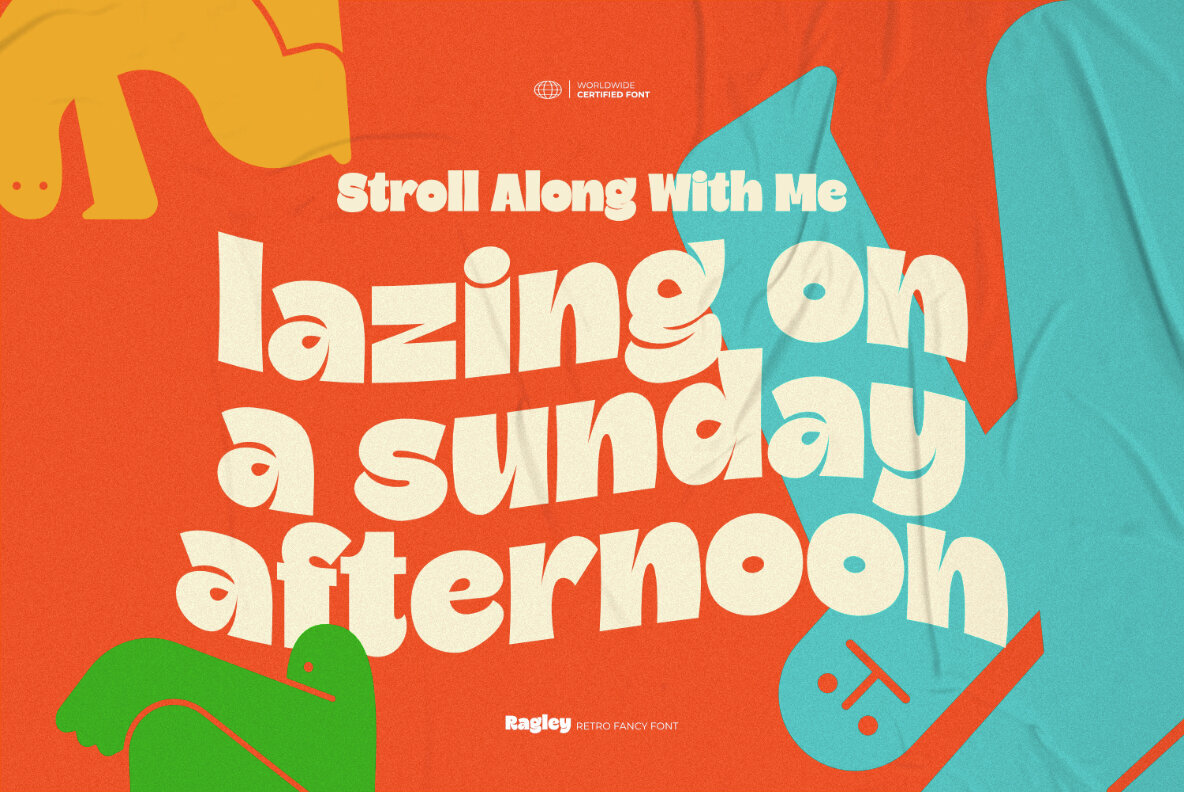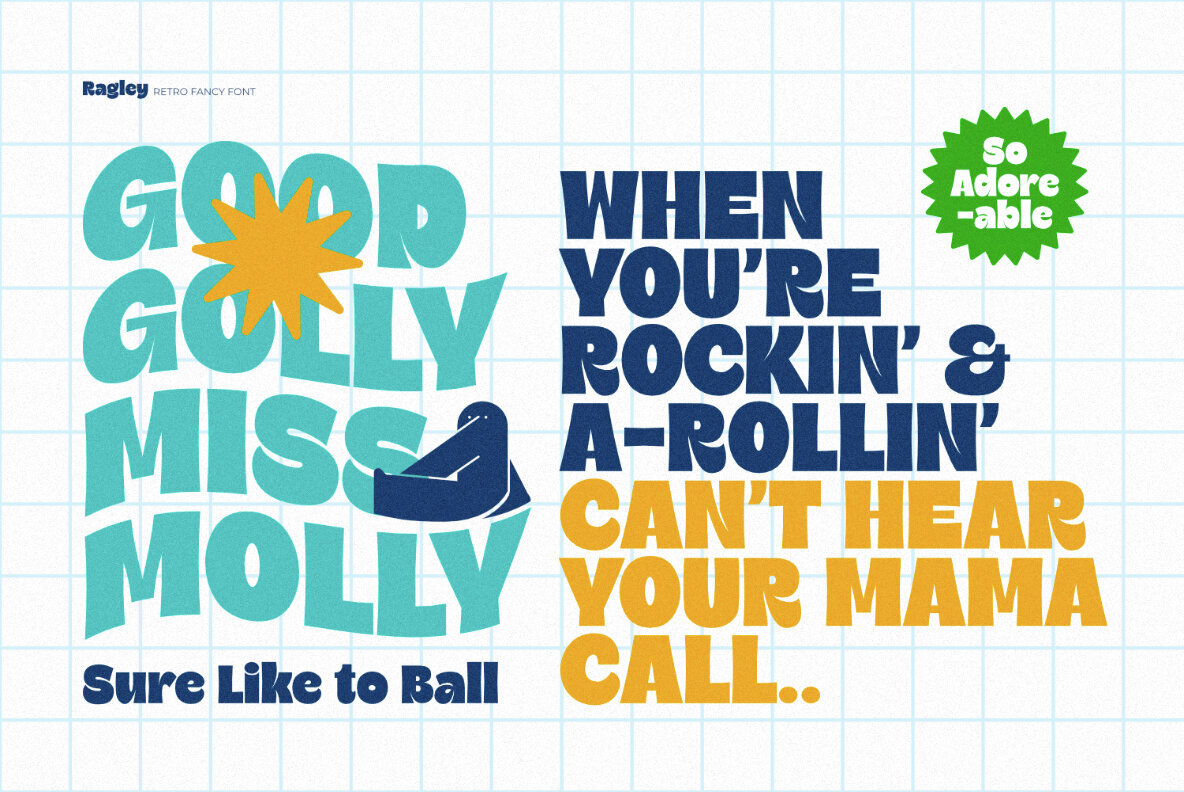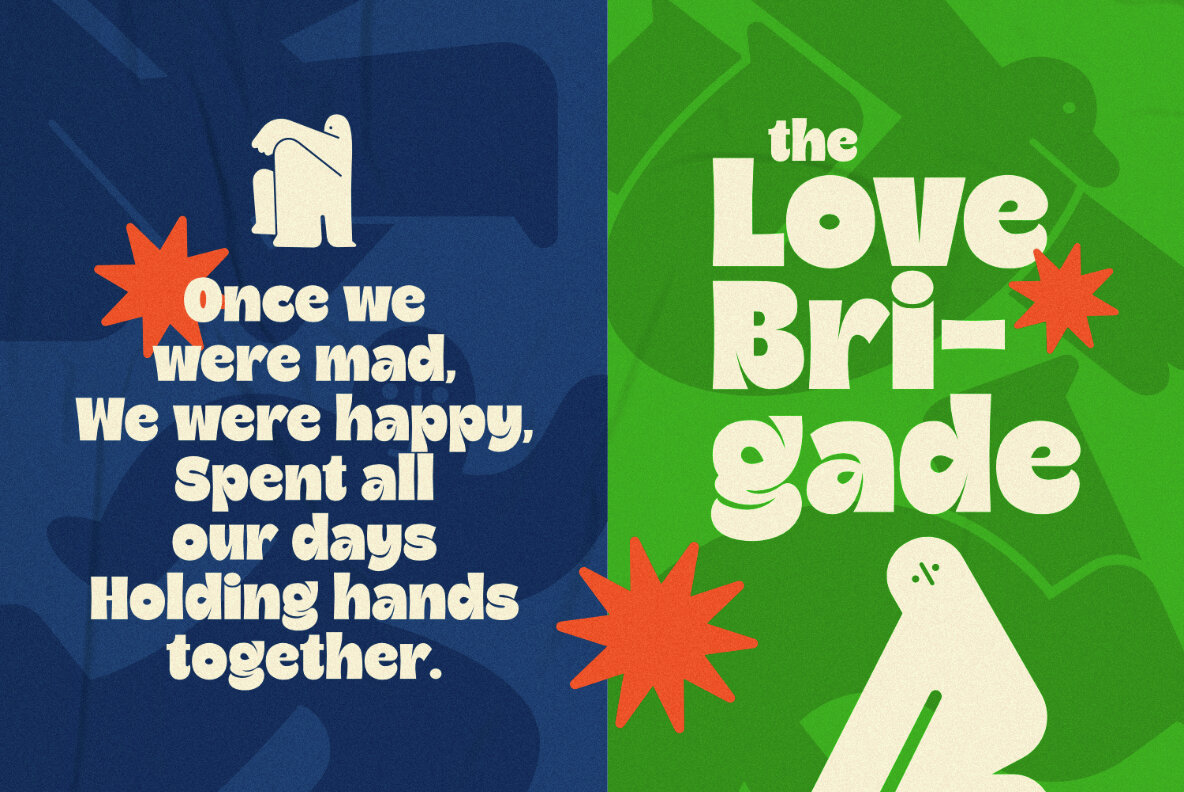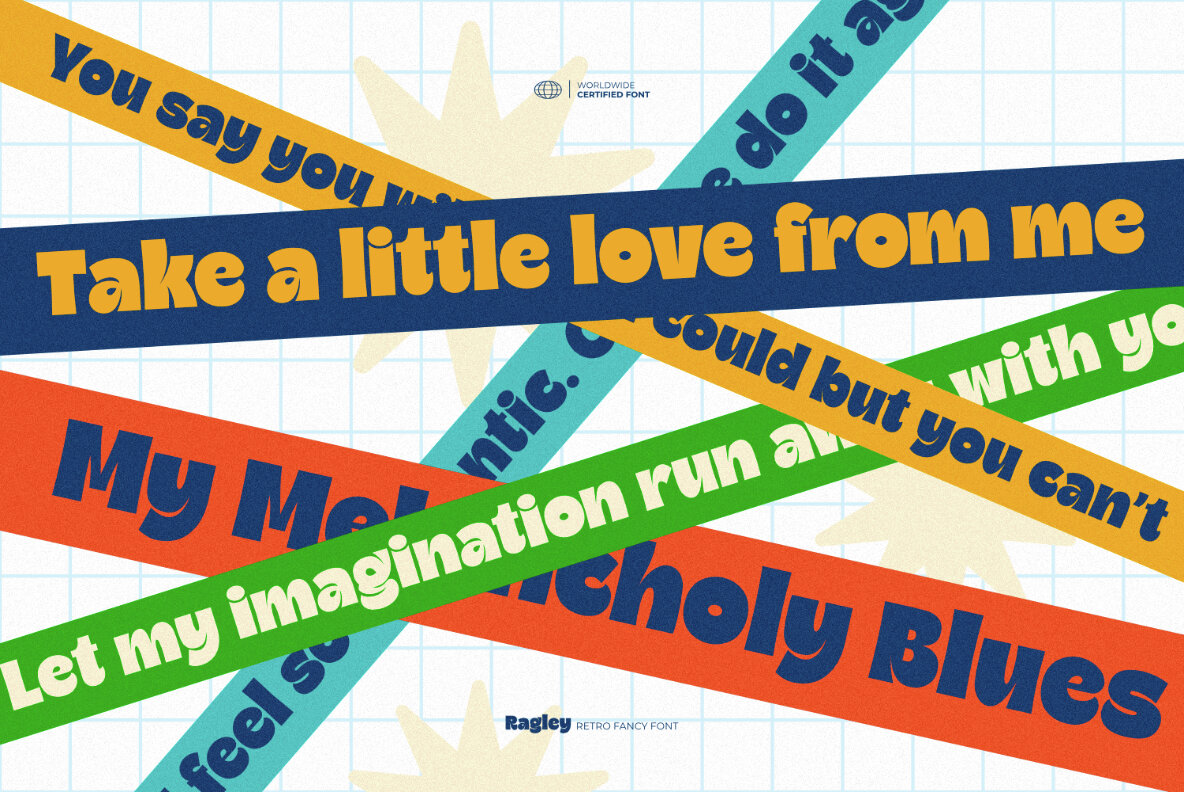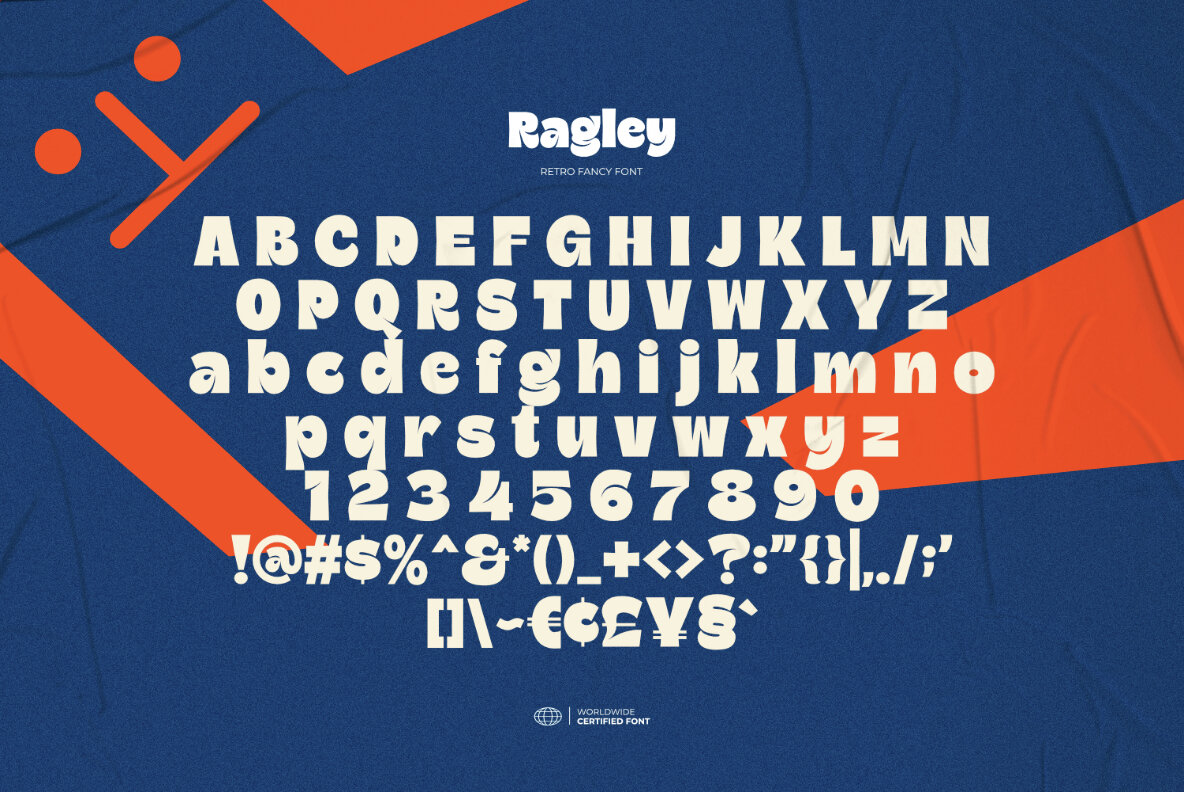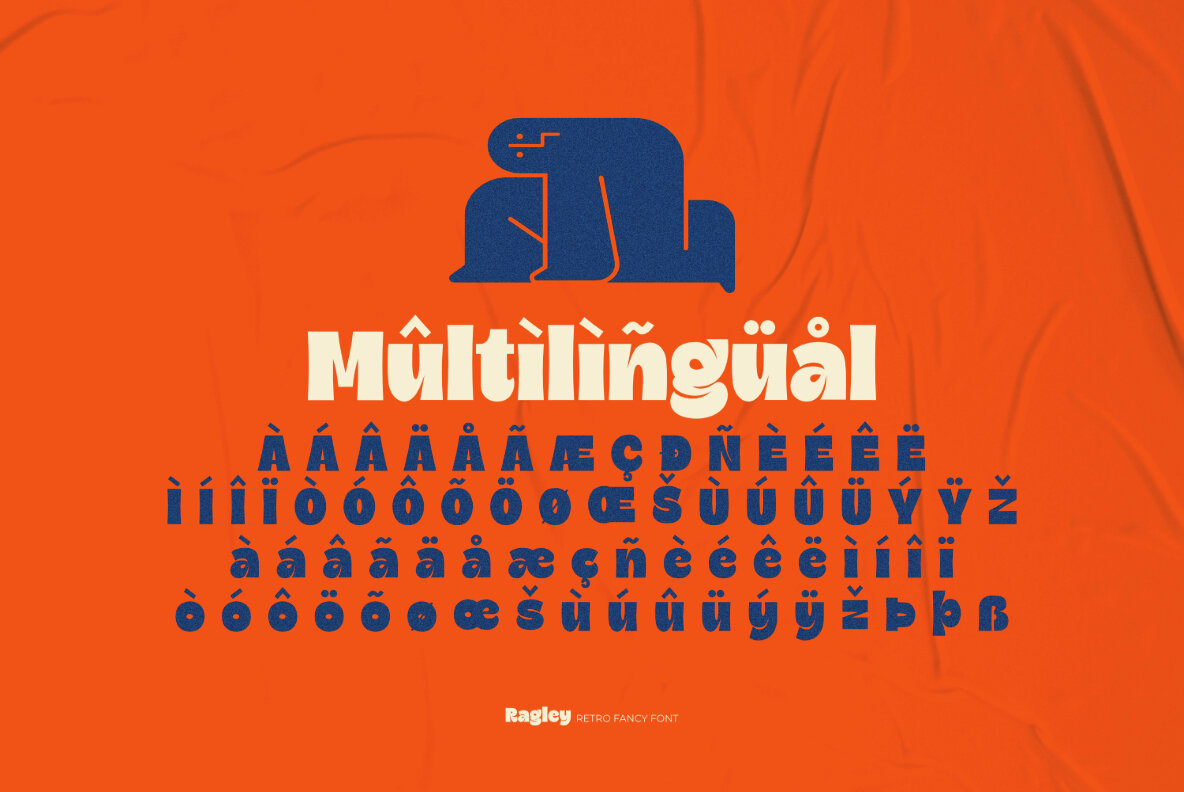
Ragley Font
Ragley is a beautifully crafted retro fancy font by Ikiiko, designed to merge the unmistakable charm of the past with a modern twist. Its aesthetic effortlessly captures the elegance of bygone eras, while maintaining a contemporary edge.Ragley: Retro Fancy Font by Ikiiko